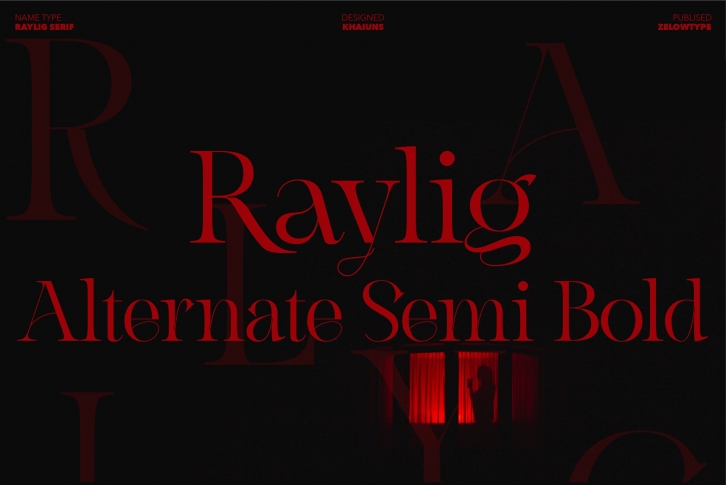
Raylig Alternate Semi Bold is an elegant and delicate serif font. It is PUA encoded which means you can access all of the glyphs and swashes with ease!Â